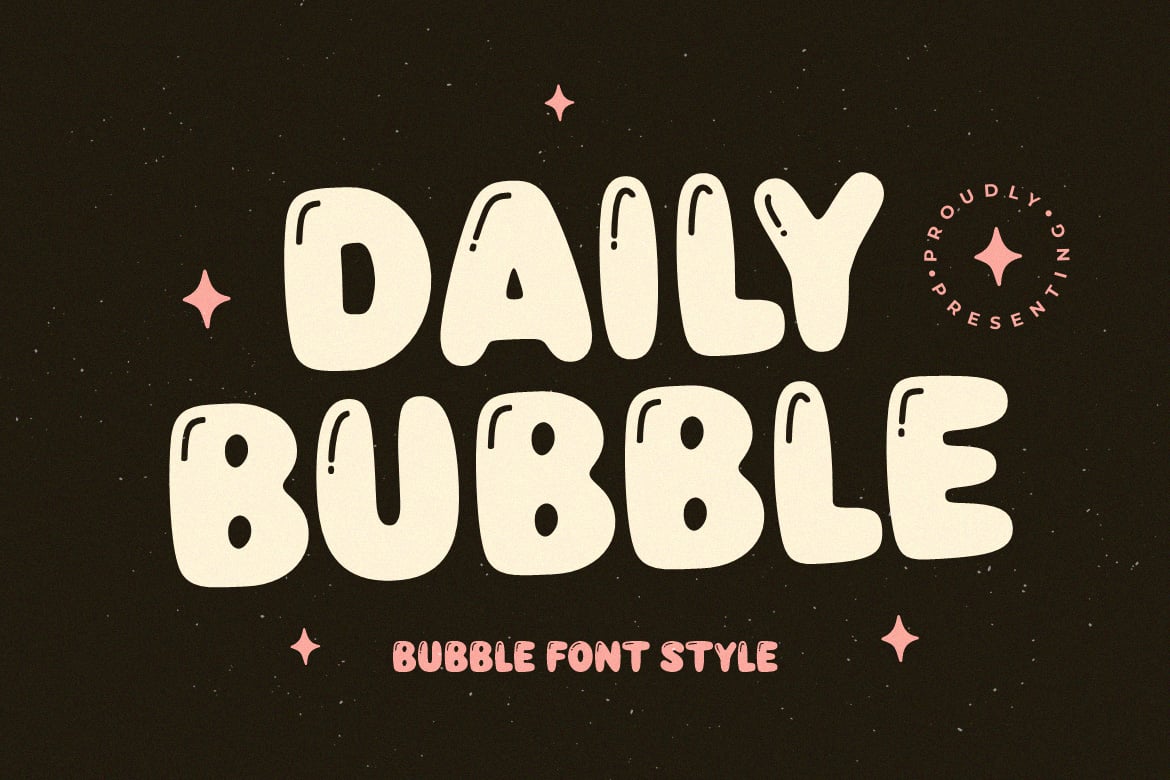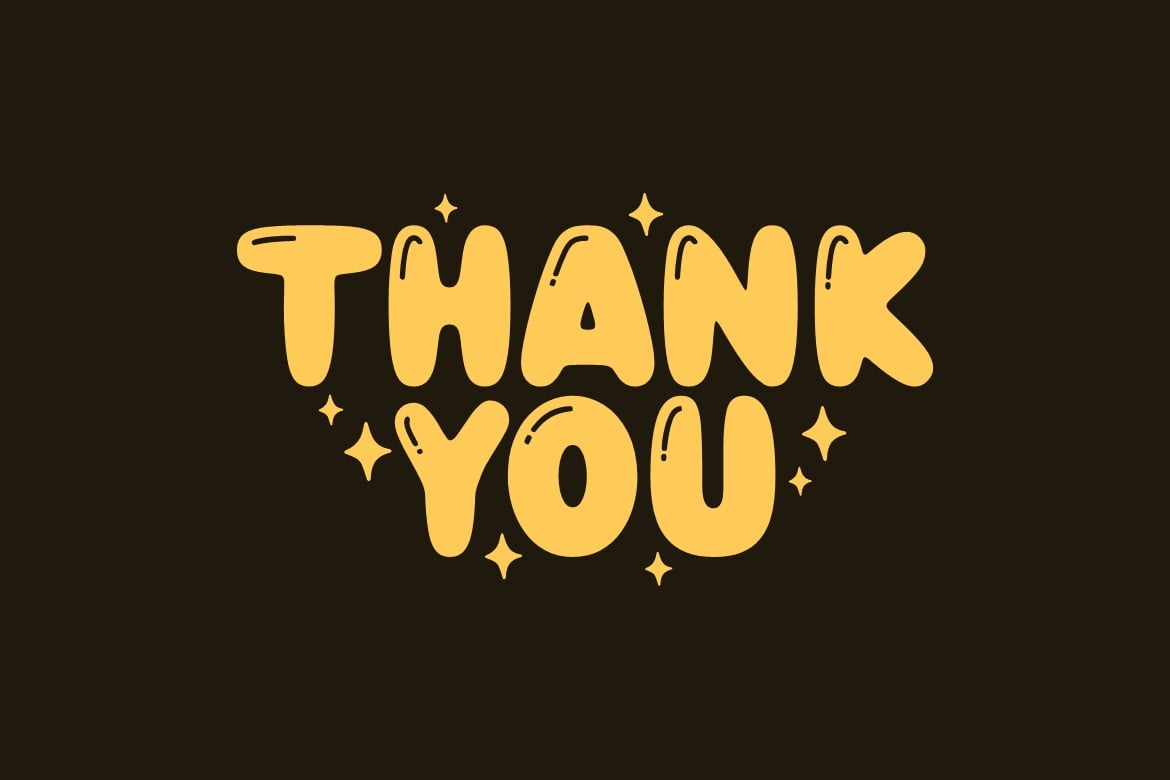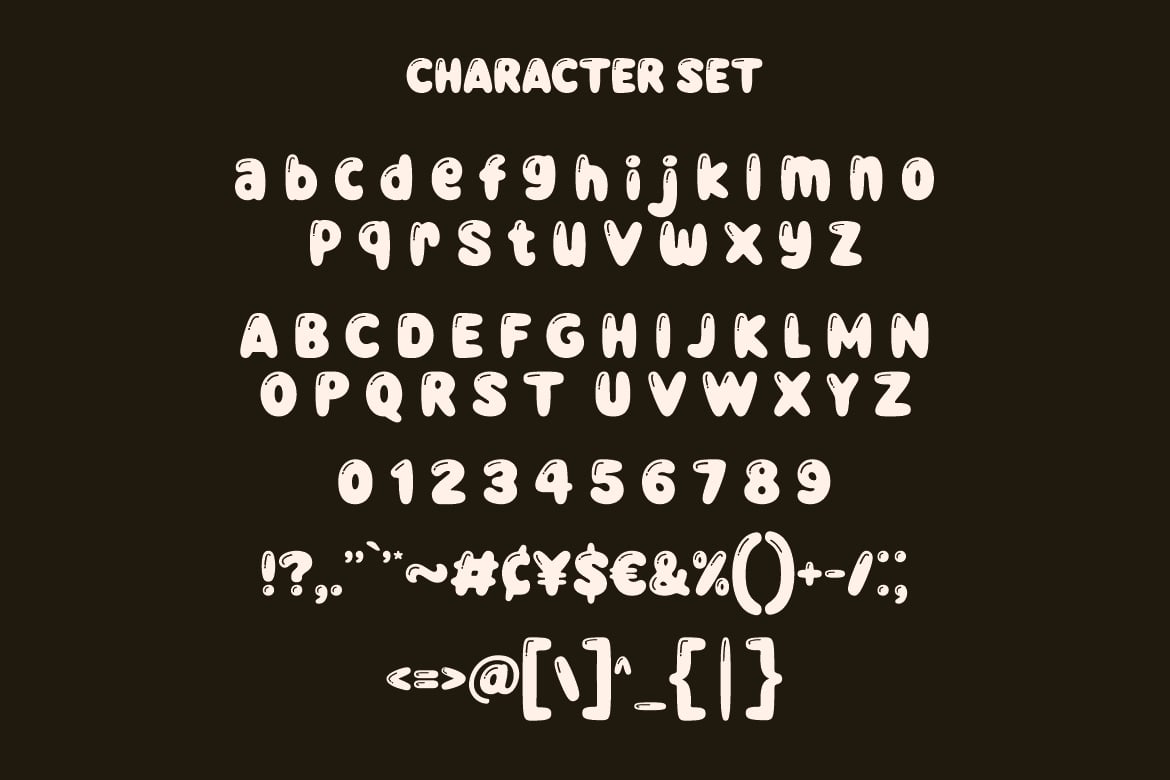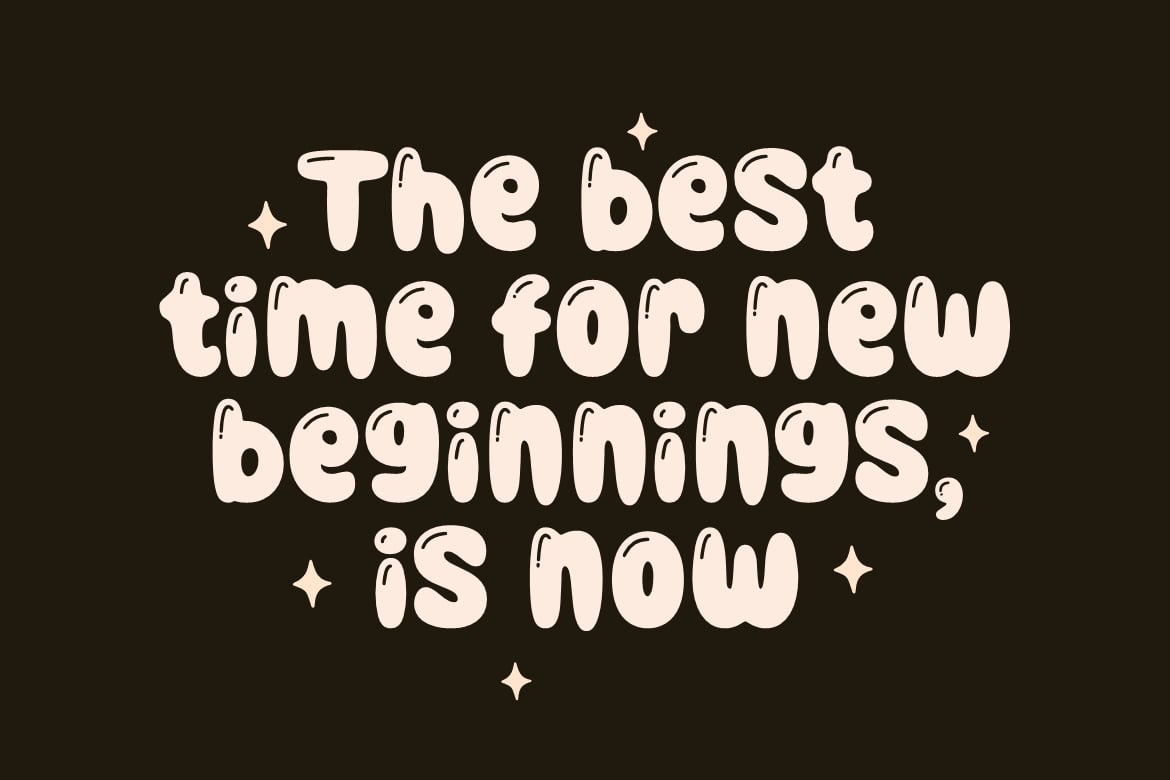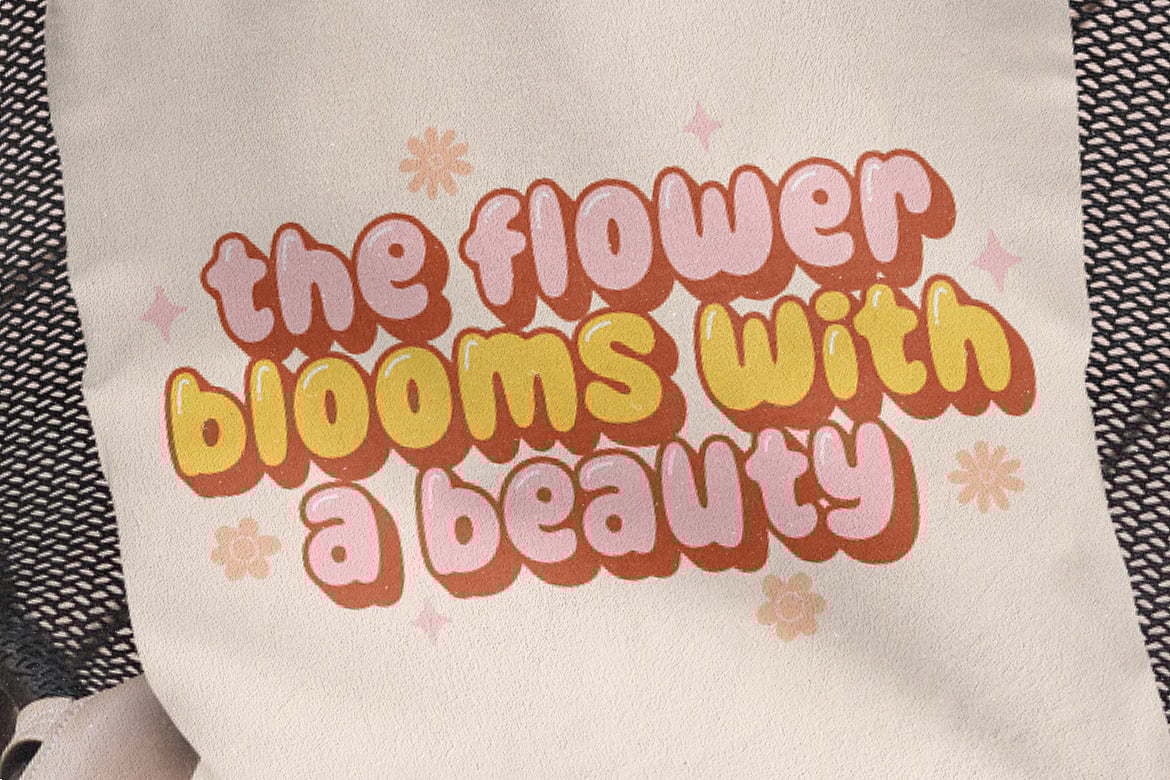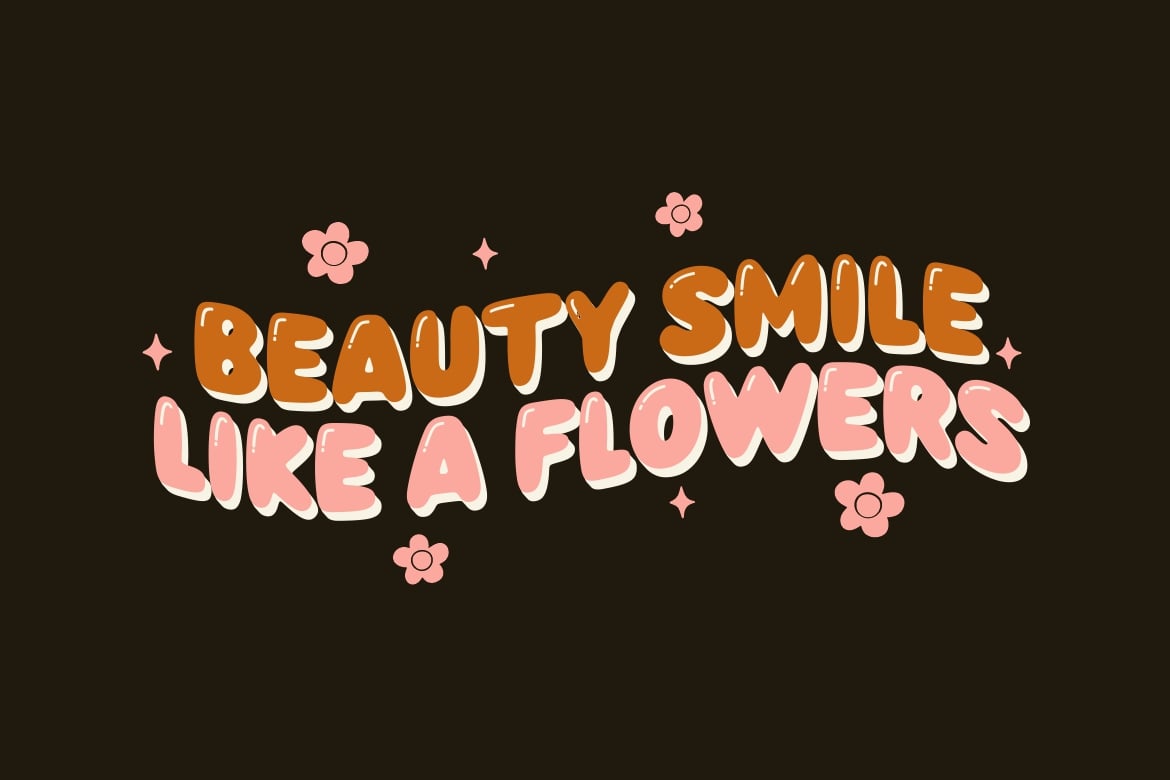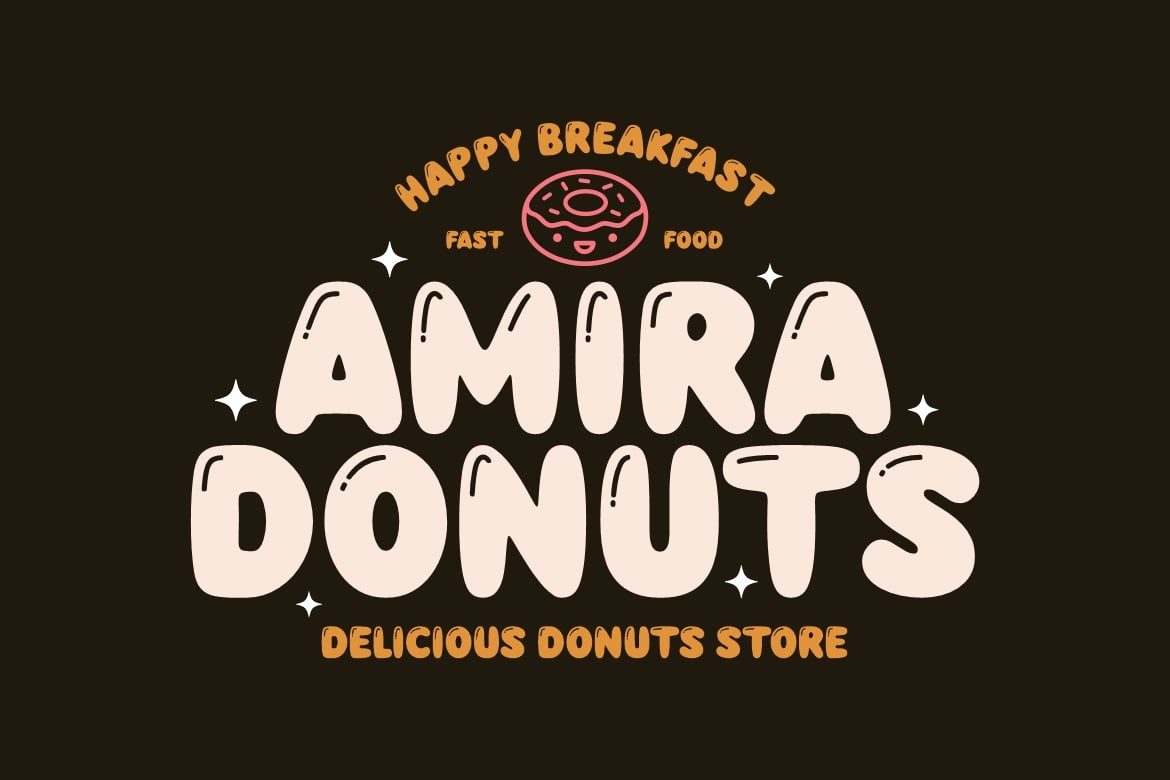
Daily Bubble Font
Daily Bubble is a modern, bold, clean and decoration retro font style. Yes, you will get two versions of this font, a clean version and a decoration version. Equipped with all complete characters ranging from uppercase letters, lowercase letters, numbers, punctuation marks and multi-lingual support, this font is ready to be used in any project. Very suitable for logotype, Stickers, Packaging design, Cricut Project, headlines, brand identity, posters, magazines, books, YouTube, Instagram, websites, or any of your creative design projects. Use this Daily Bubble font to add that special modern bubbly touch to any design idea you can think of!.